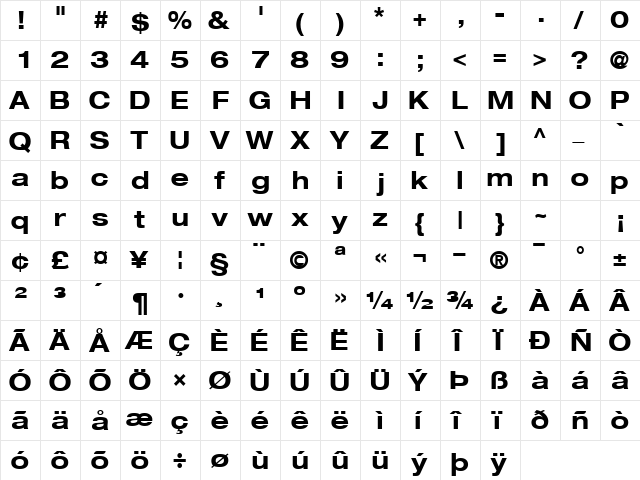
ContextRepriseExpandedSSK Bold Font Preview
ContextRepriseExpandedSSK Bold
Design Context for ContextRepriseExpandedSSK Typeface
ContextRepriseExpandedSSK is a composed and adaptable typeface that performs quietly and consistently across a wide range of design contexts. The heavy weight commands attention and anchors typographic hierarchies.